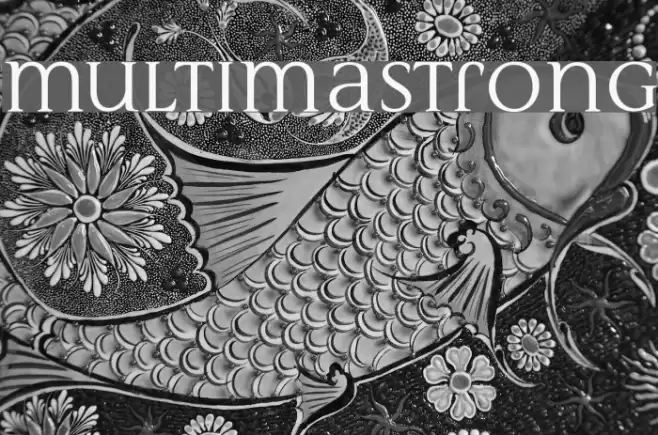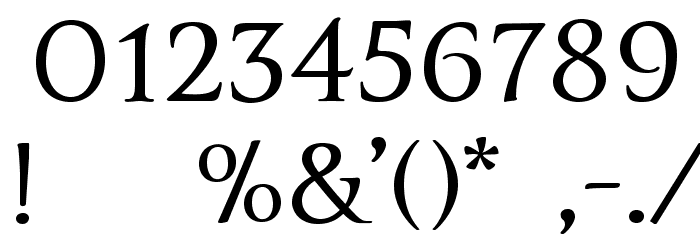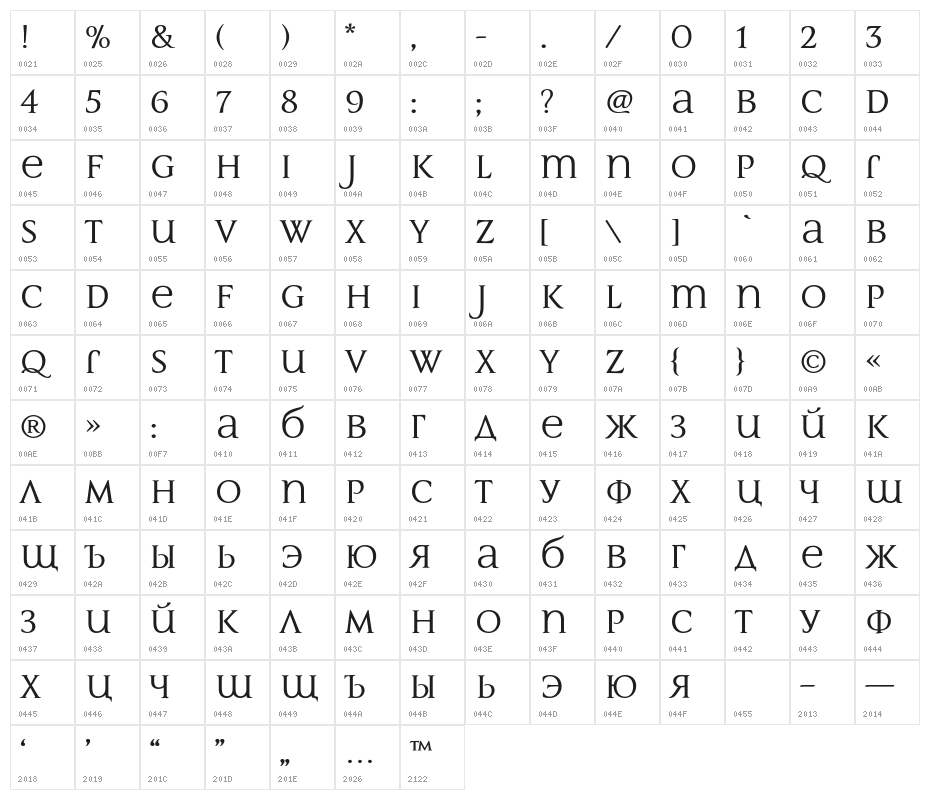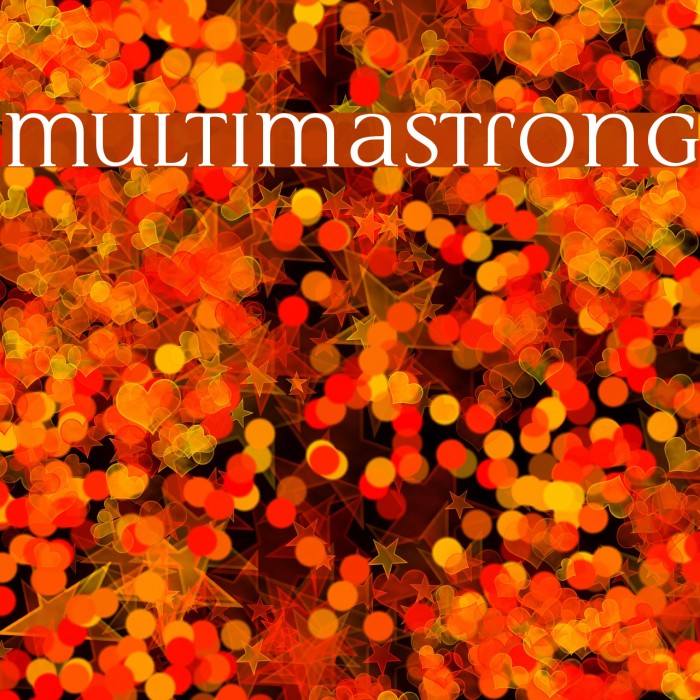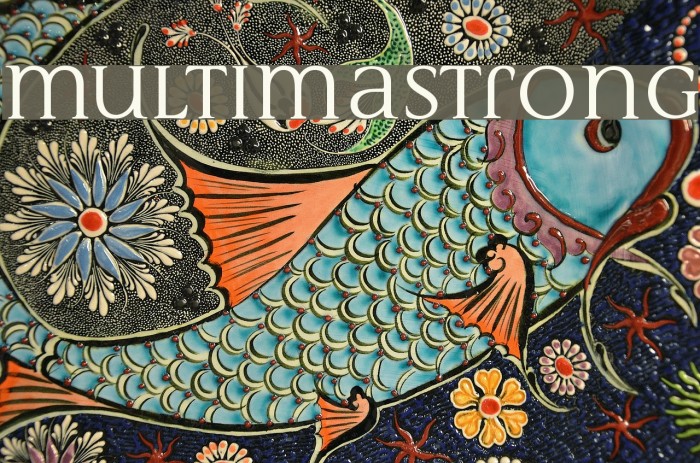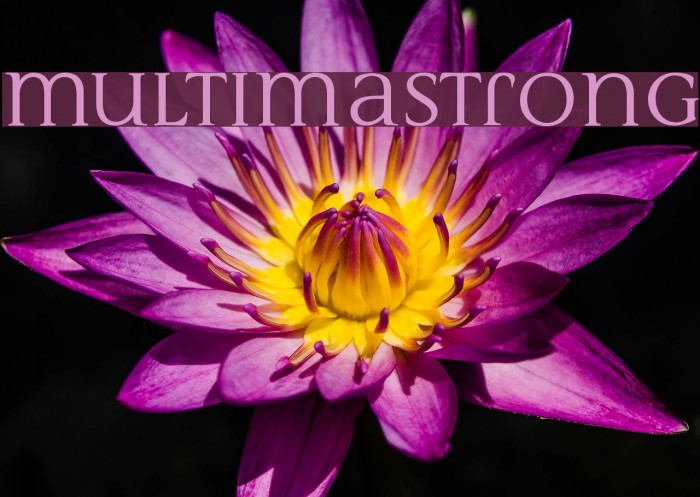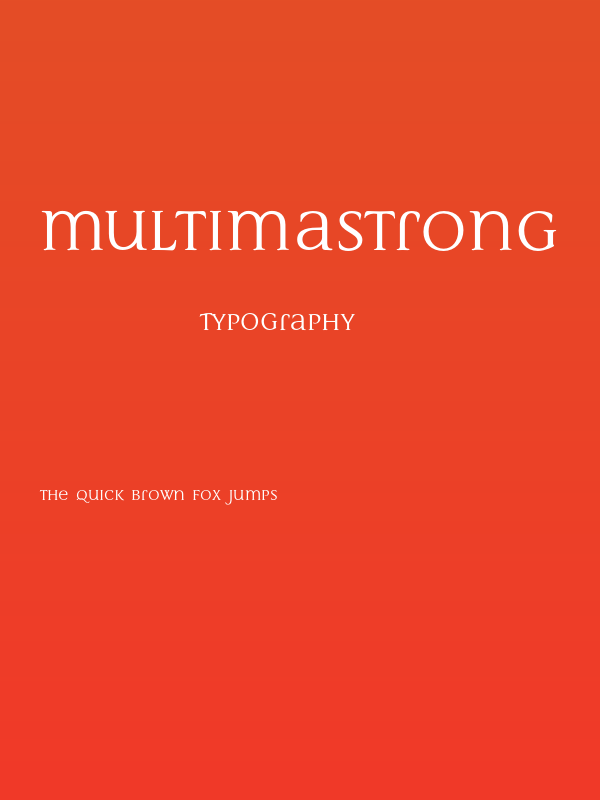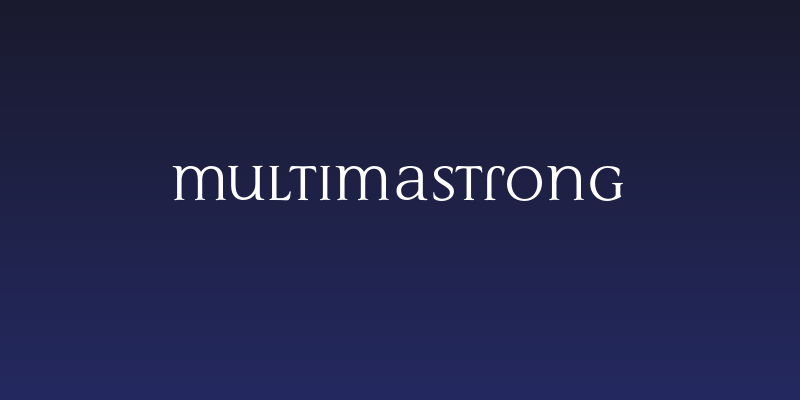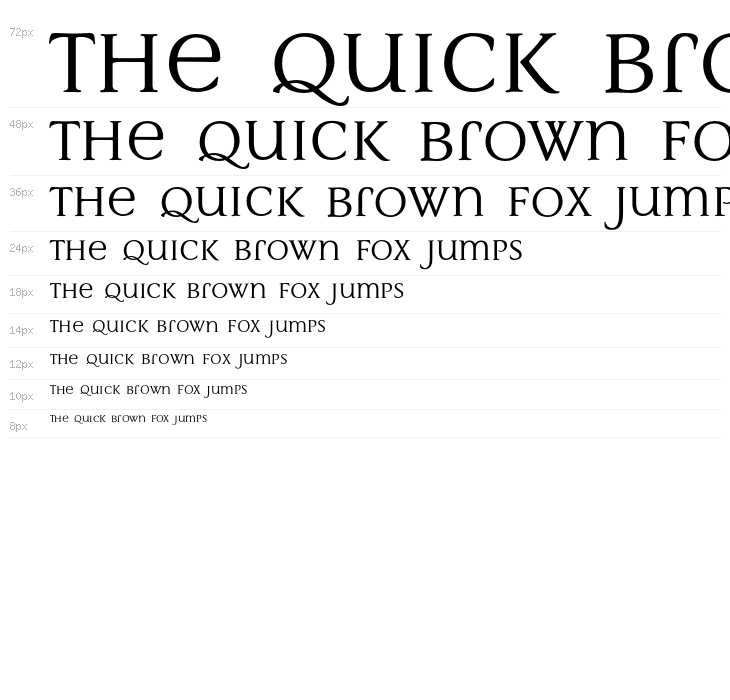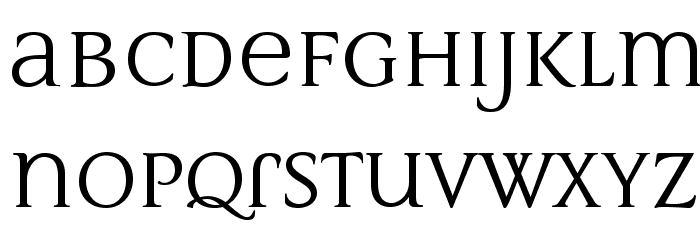
MultimaStrong Font
MultimaStrong Description
This font features a classic serif style with a modern twist, characterized by its elegant and refined letterforms. The serifs are pronounced yet not overly exaggerated, providing a balanced and sophisticated appearance. The uppercase letters exhibit a traditional structure, while the lowercase letters maintain a consistent flow, enhancing readability. The numerals are clear and distinct, complementing the overall aesthetic. Special characters are thoughtfully designed, ensuring versatility across various applications. The font's design is suitable for both digital and print media, offering a timeless appeal that can adapt to contemporary design needs.
An elegant serif font with a modern twist, offering balanced and refined letterforms from Uncategorized fonts.
- Proposed Projects: Ideal for editorial design, book covers, branding, and high-end product packaging.
- Overall Style: Classic